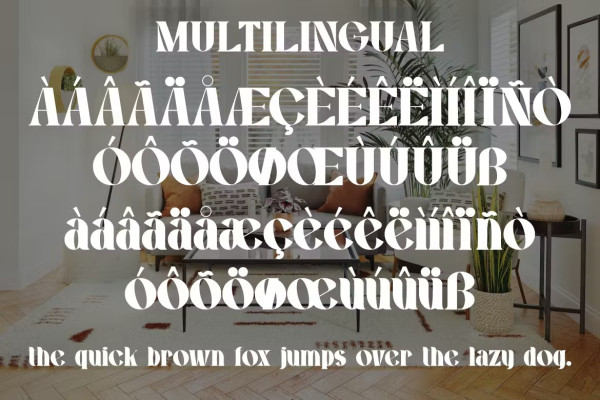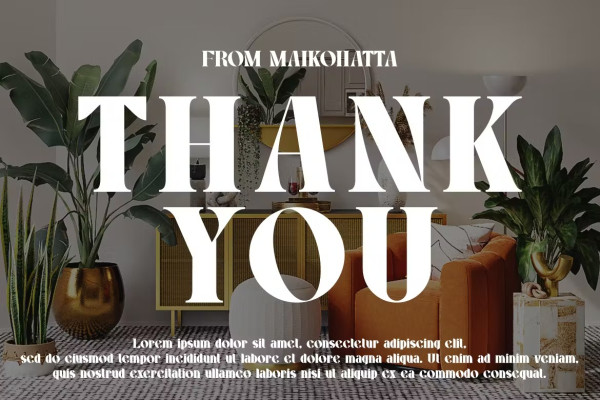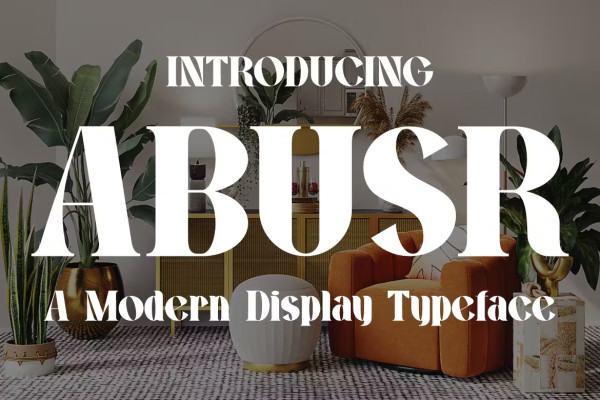
Abusr Font
Abusr Font – Elegant Font is a bold and authentic display font. The font is suitable for any branding project like logo, template design, Fashion, Cover, and many more. outstanding in a wide range of contexts.